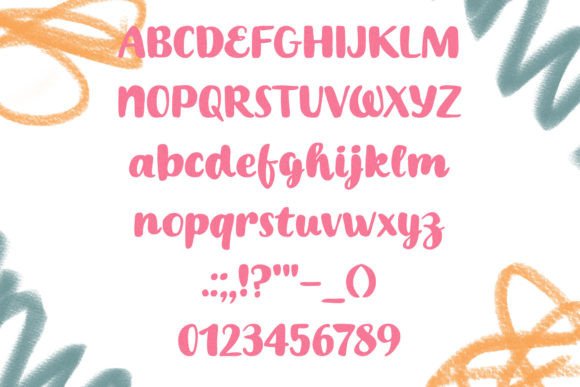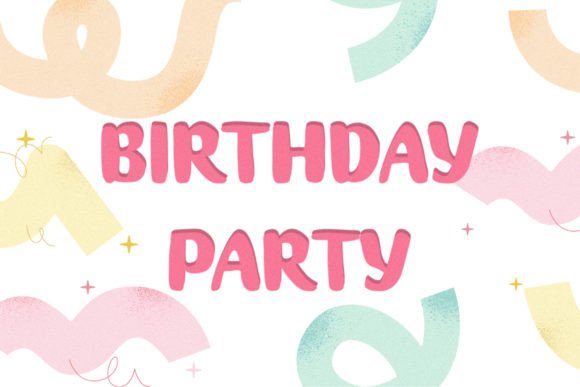
Birthday Party Font: Celebrate Your Special Day in Style!
Are you looking for a font that will add a touch of excitement to your birthday projects? Look no further! Our Birthday Party font is the perfect choice for all your birthday celebrations. This playful and festive script font is designed to make your designs stand out and leave a lasting impression on your friends and family.
The Perfect Font for Birthday Projects
Whether you’re designing invitations, creating banners, or crafting party favors, our Birthday Party font is the perfect choice. Its lively and fun style is sure to add a touch of joy to your designs, making them truly special and memorable. With this font, you can create beautiful and eye-catching designs that will make your birthday celebrations unforgettable.
Why Choose Our Birthday Party Font?
- Playful and Festive: Our Birthday Party font is designed to be playful and festive, making it perfect for birthday projects.
- Easy to Read: The font is clear and easy to read, making it perfect for use on invitations, banners, and other party materials.
- Versatile: Our Birthday Party font can be used for a wide range of birthday projects, from invitations to party favors.
- Unique: This font is unique and stands out from other fonts, making your designs truly special and memorable.
- Birthday Invitations: Create beautiful and eye-catching birthday invitations that will set the tone for your party.
- Party Banners: Design a stunning party banner that will hang above your food table or entrance.
- Party Favors: Add a personal touch to your party favors, such as candies, treats, or gifts, with our Birthday Party font.
- Social Media Posts: Create engaging social media posts that will build excitement for your party.
Make Your Birthday Celebrations Extra Special
Why settle for boring fonts when you can make your birthday truly special with our Birthday Party font? With this font, you can add a touch of joy and excitement to your designs, making your birthday celebrations unforgettable. Whether you’re turning 5 or 50, our Birthday Party font is the perfect choice to make your special day truly memorable.
Tips and Tricks for Using Our Birthday Party Font
- Experiment with Colors: Try pairing our Birthday Party font with bright and bold colors to add an extra touch of excitement to your designs.
- Add Graphics: Add graphics, such as balloons, confetti, or cakes, to your designs to make them more festive.
- Play with Sizes: Experiment with different font sizes to create visual interest and hierarchy in your designs.
- Get Creative: Don’t be afraid to get creative and try new things with our Birthday Party font!
| Font Name | Birthday Party Font |
| Author | MyFontsShop |
Our Birthday Party font is the perfect choice for all your birthday projects. With its playful and festive style, this font is sure to add a touch of excitement to your designs. Whether you’re designing invitations, creating banners, or crafting party favors, our Birthday Party font is the perfect choice to make your birthday celebrations unforgettable. So why wait? Try it out today and make your celebration extra fun and memorable!